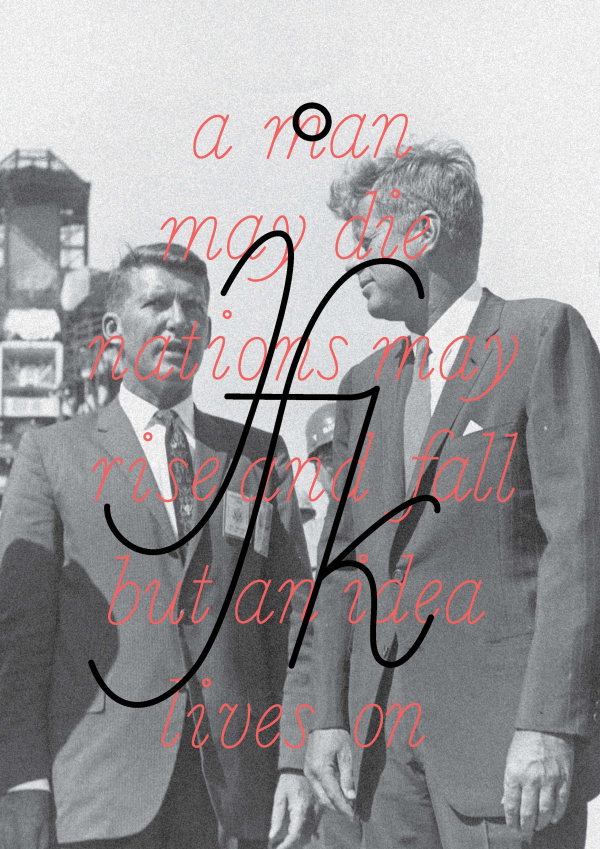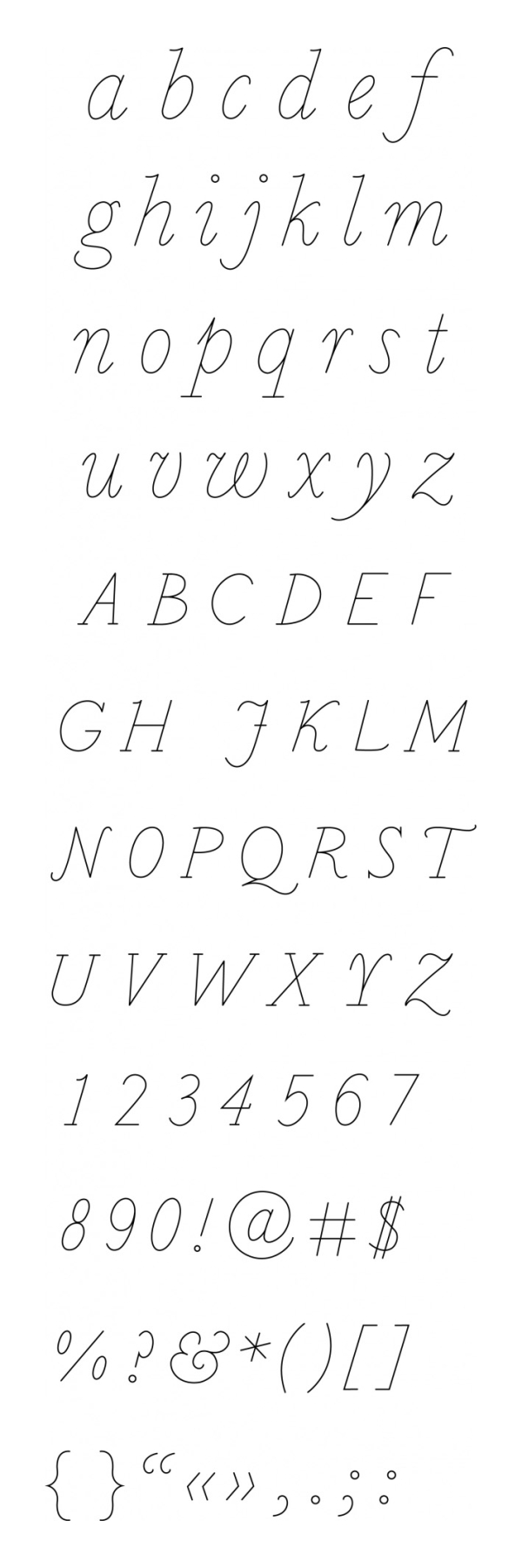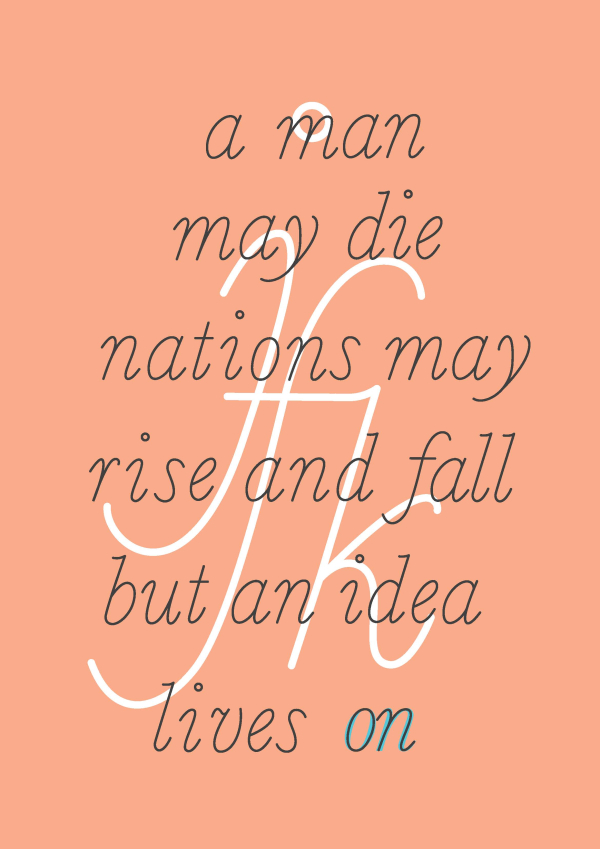
Kennedy
This font, based on Baskerville Italic, is inspired by the elegance, the secrets stories and all the glamour around John F. Kennedy and his personnal life.
Designer: Anne Catherine Verrette
Publisher: Anne Catherine Verrette